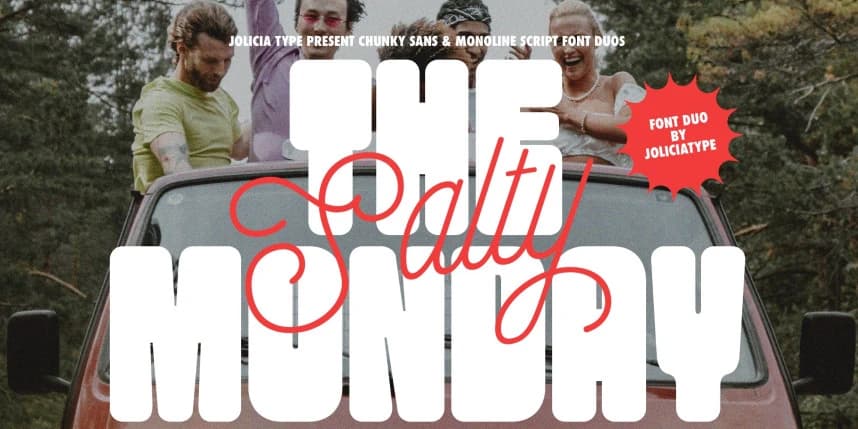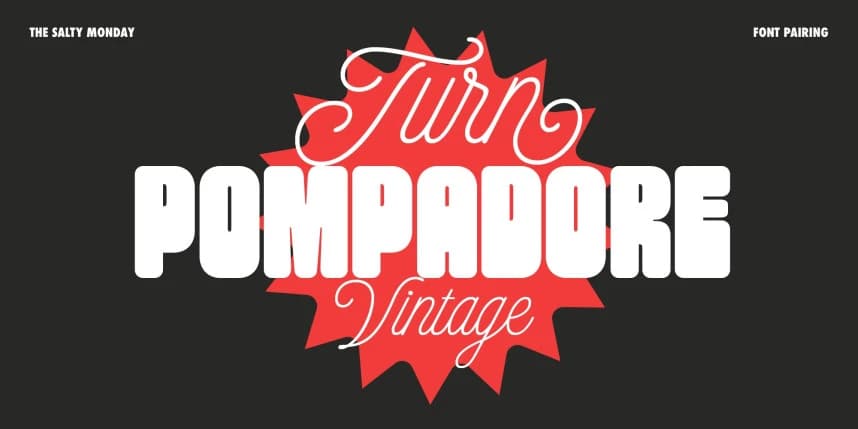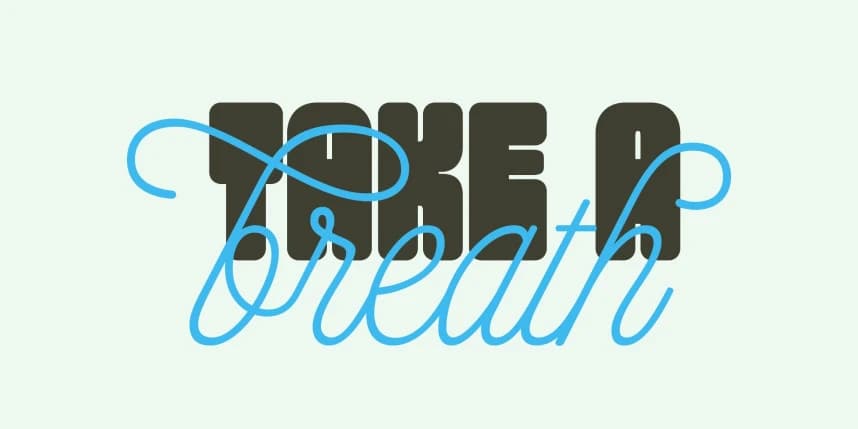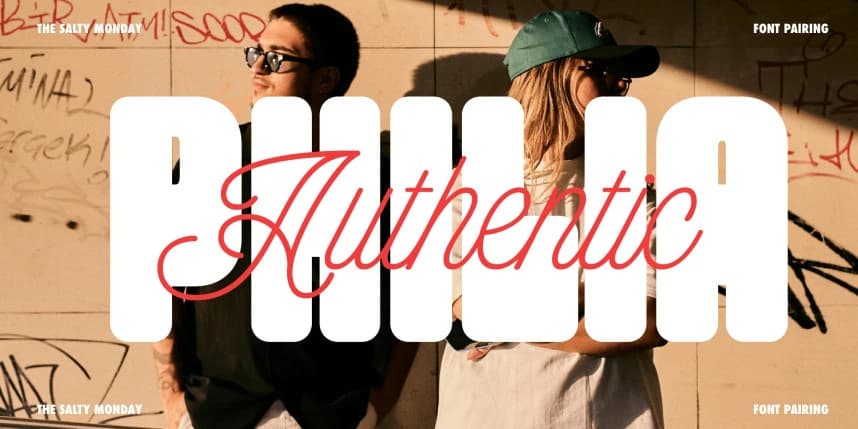
The Salty Monday Font
The Salty Monday Font is a dynamic font duo that blends the bold energy of a chunky sans with the relaxed charm of a monoline script, creating a distinctive and full-of-character typeface. Designed to deliver strong visual contrast while maintaining harmony